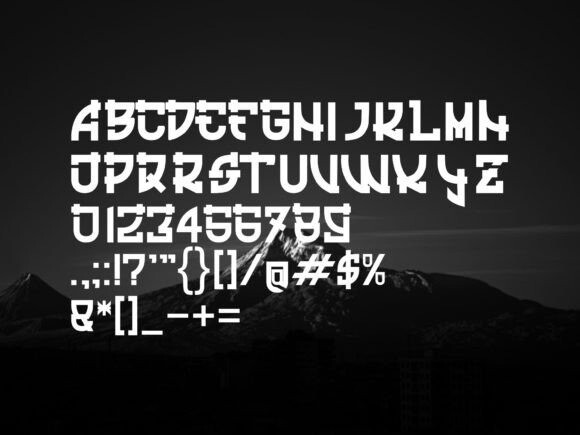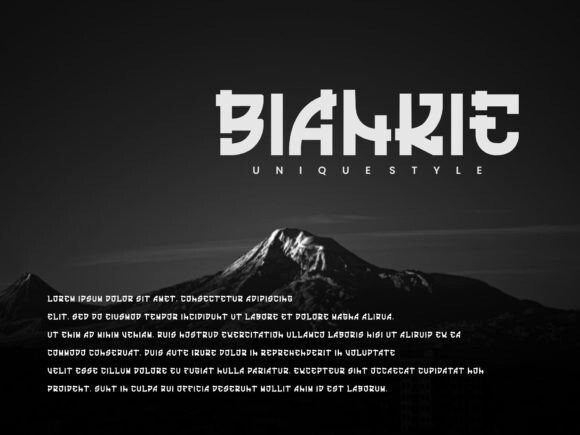
Biankie – Decorative Font
Biankie is a cool, uniquely-shaped display font. Contemporary and fresh, this font has the potential to elevate any project you are working on.